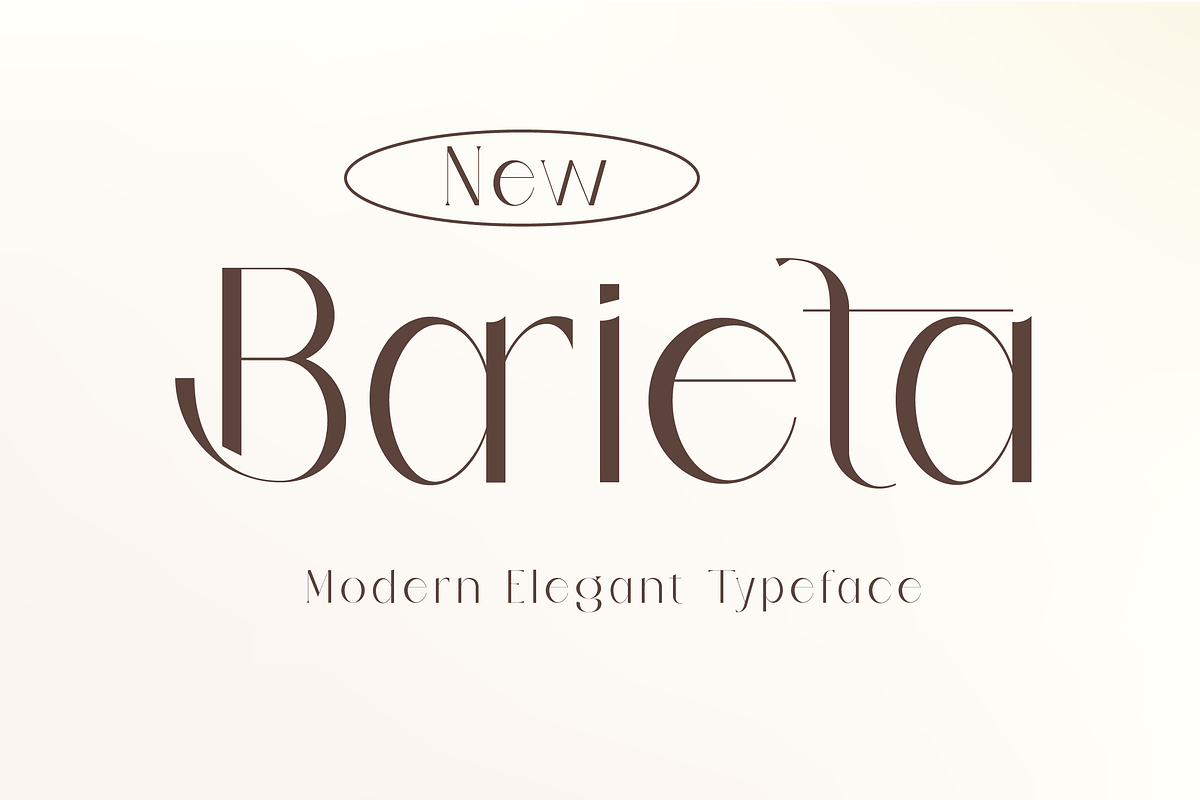
Barieta Elegant Typeface Free Download
Barieta Elegant Typeface Free Download is a sophisticated and stylish serif font designed with refined elegance and modern charm. Featuring smooth curves and high contrast between thick and thin strokes, Barieta is perfect for luxury branding, editorial design, invitations, logos, and high-end packaging. Its elegant appearance makes it ideal for both traditional and contemporary projects that require a touch of class.
Barieta’s versatility ensures it works beautifully for both display and body text, making it suitable for upscale projects, fashion-related materials, and formal design needs. Whether you're crafting a premium brand identity or a stylish magazine layout, this typeface brings sophistication and timeless beauty to your work.